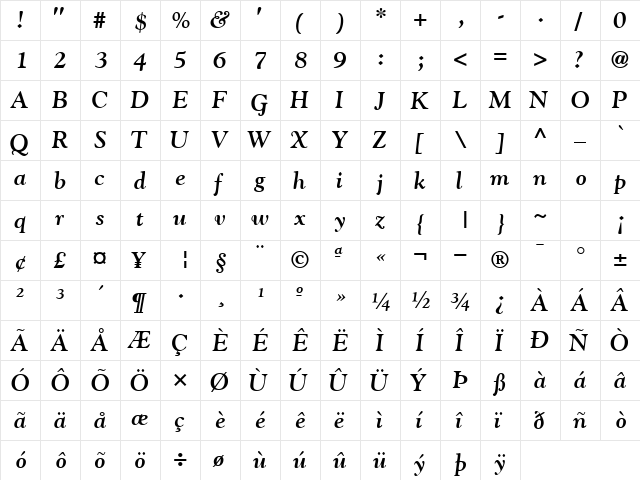
GoudySSK BoldItalic Font Preview
Design Context for GoudySSK Typeface
GoudySSK takes a measured approach to typography — its balanced proportions and neutral character make it a reliable workhorse for both digital and print work. Its italic angle brings a sense of urgency and motion to the letterforms. Its bold stroke weight gives it real presence on the page.
Pro Tip: Try GoudySSK for annotation and caption copy alongside an upright companion — the contrast in angle creates a dynamic but ordered typographic system.